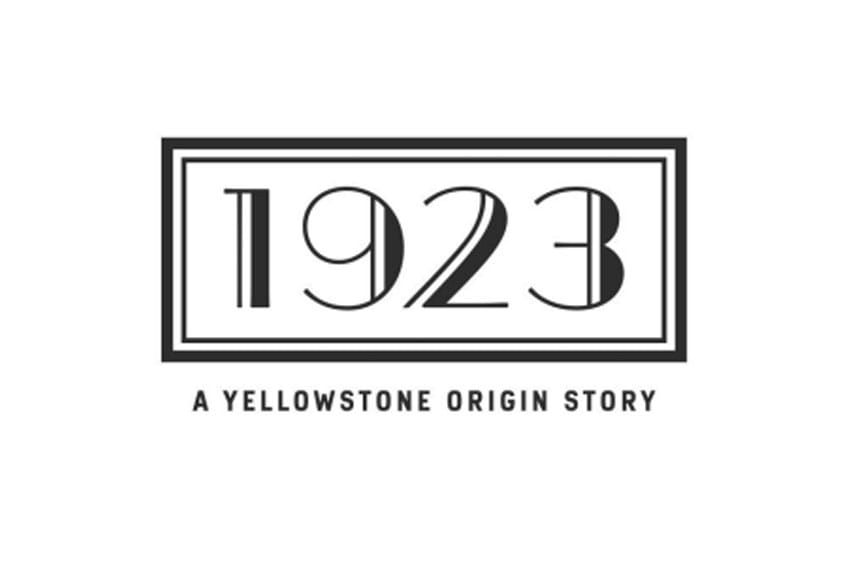
1923 (Series) Font is a Western drama about the Dutton family facing hardship during Prohibition and the Great Depression. It’s a prequel to Yellowstone, exploring their fight to protect their ranch.
The closest font we found to the 1923 logo is Boul Mich. Boul Mich is a 1927 display typeface by Oswald Bruce Cooper, based on Broadway-style lettering and named after Chicago’s Michigan Boulevard. Though not his concept, it highlights Cooper’s versatility and has been faithfully redrawn from his original work.
1923 (Series) Font Preview